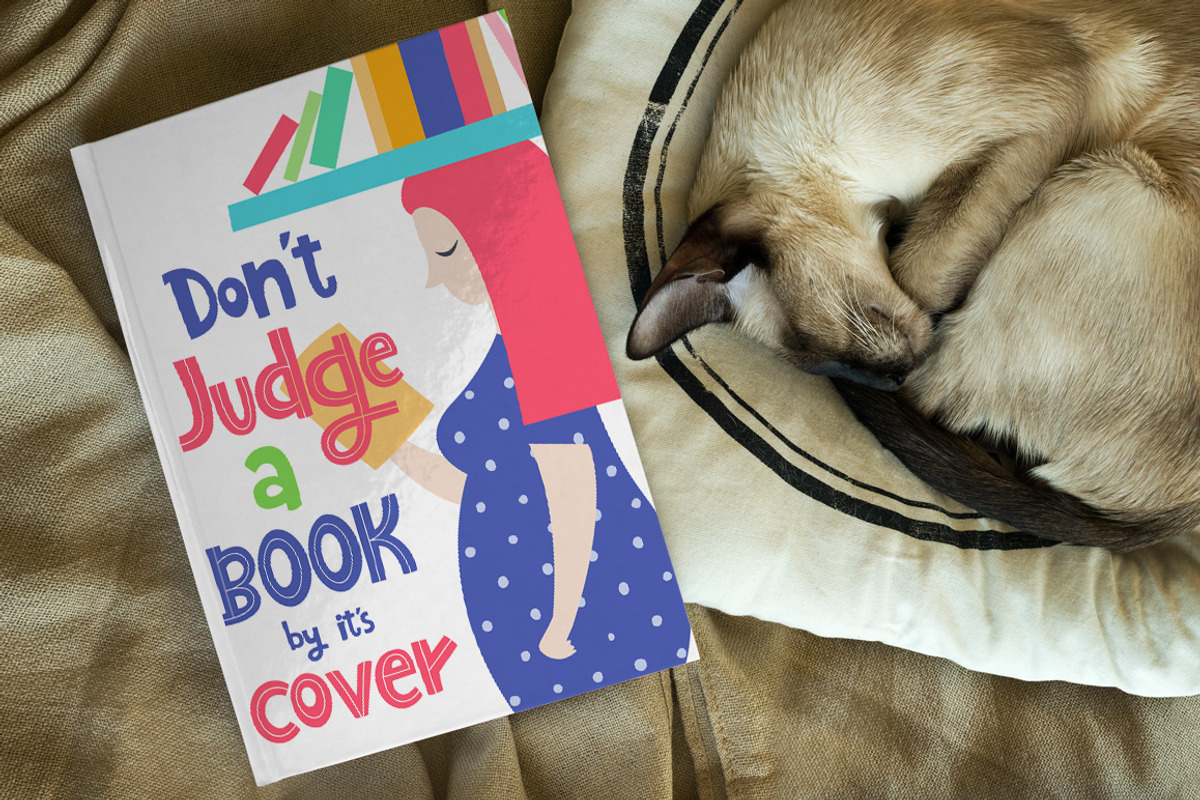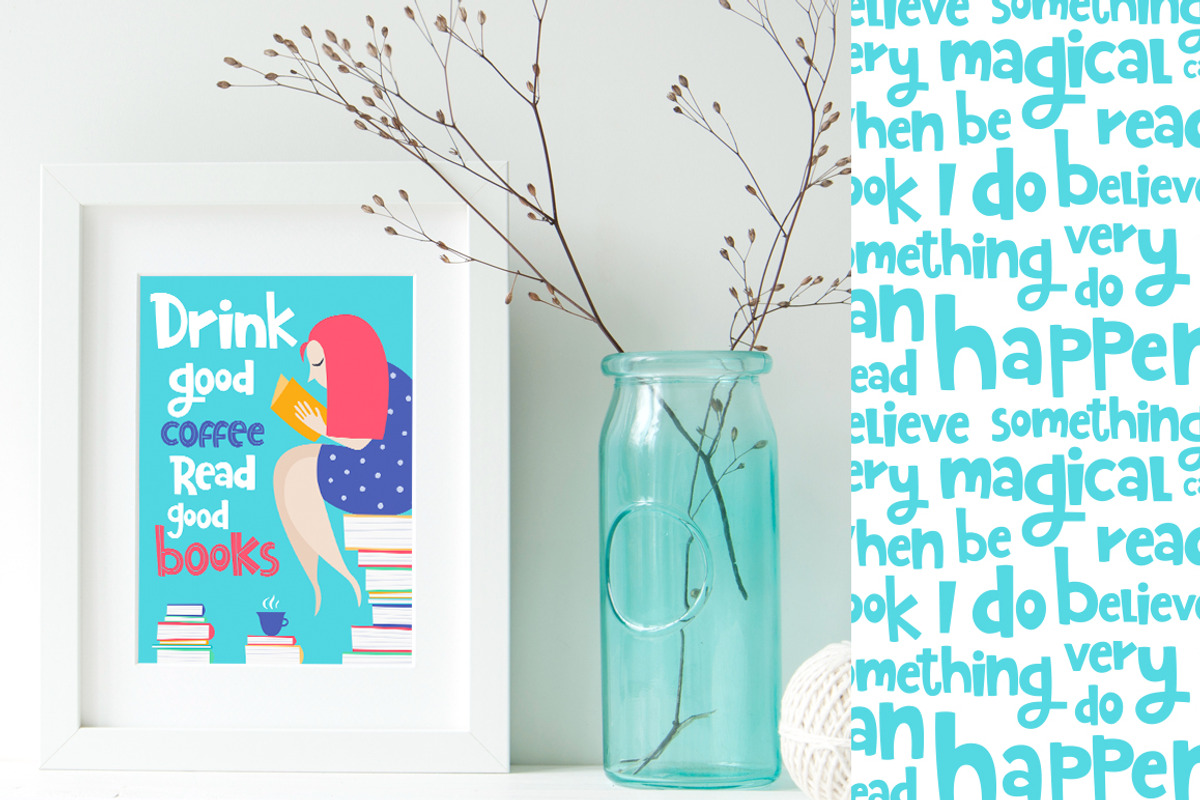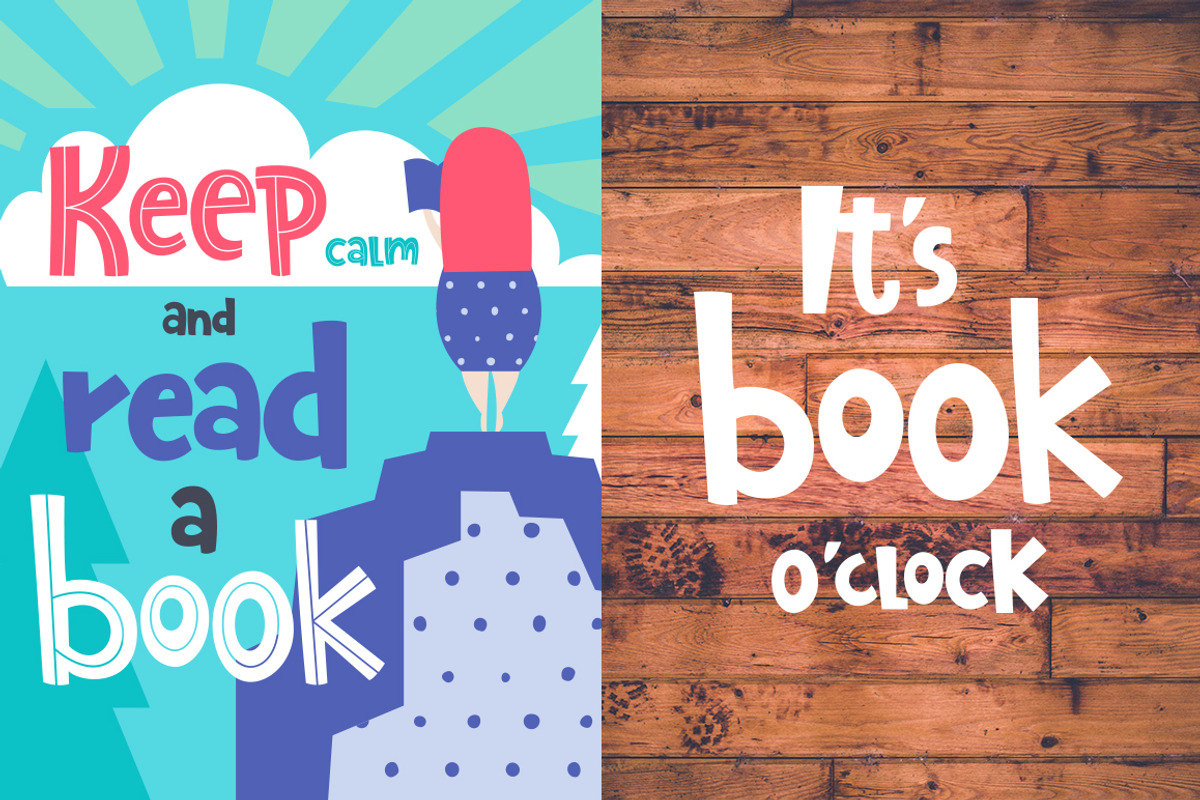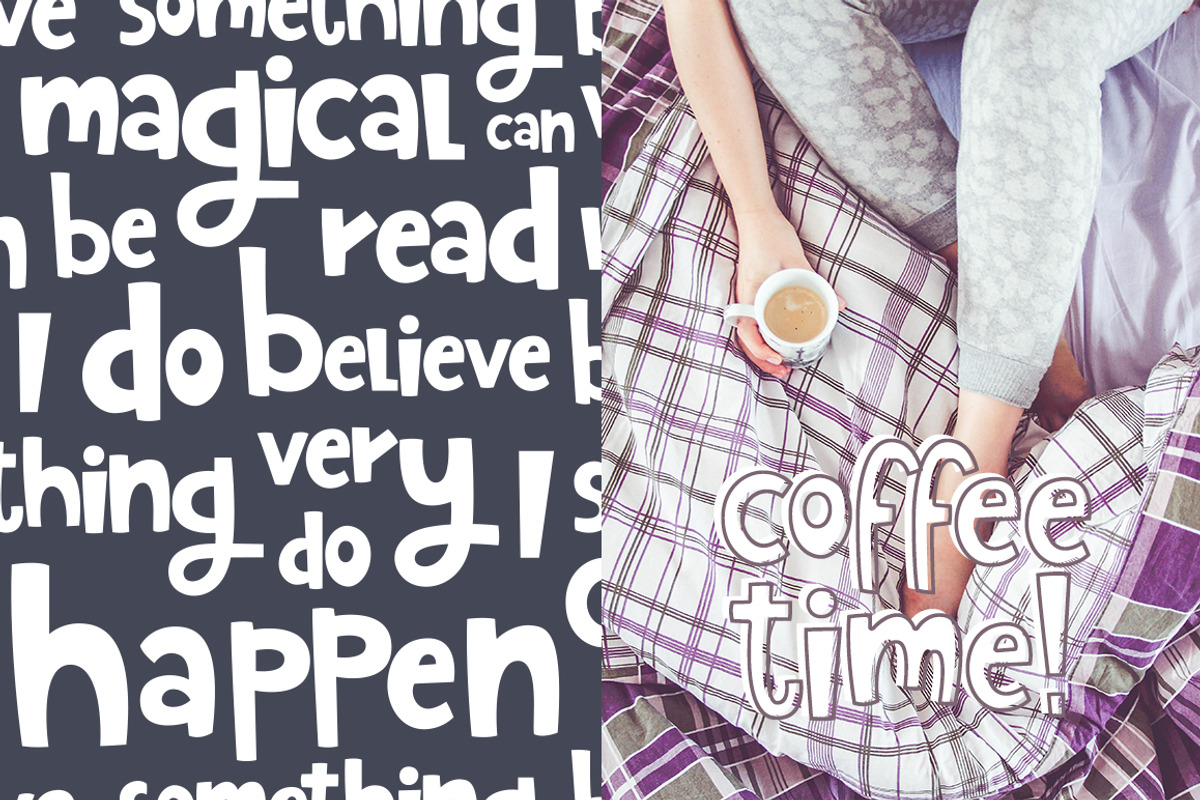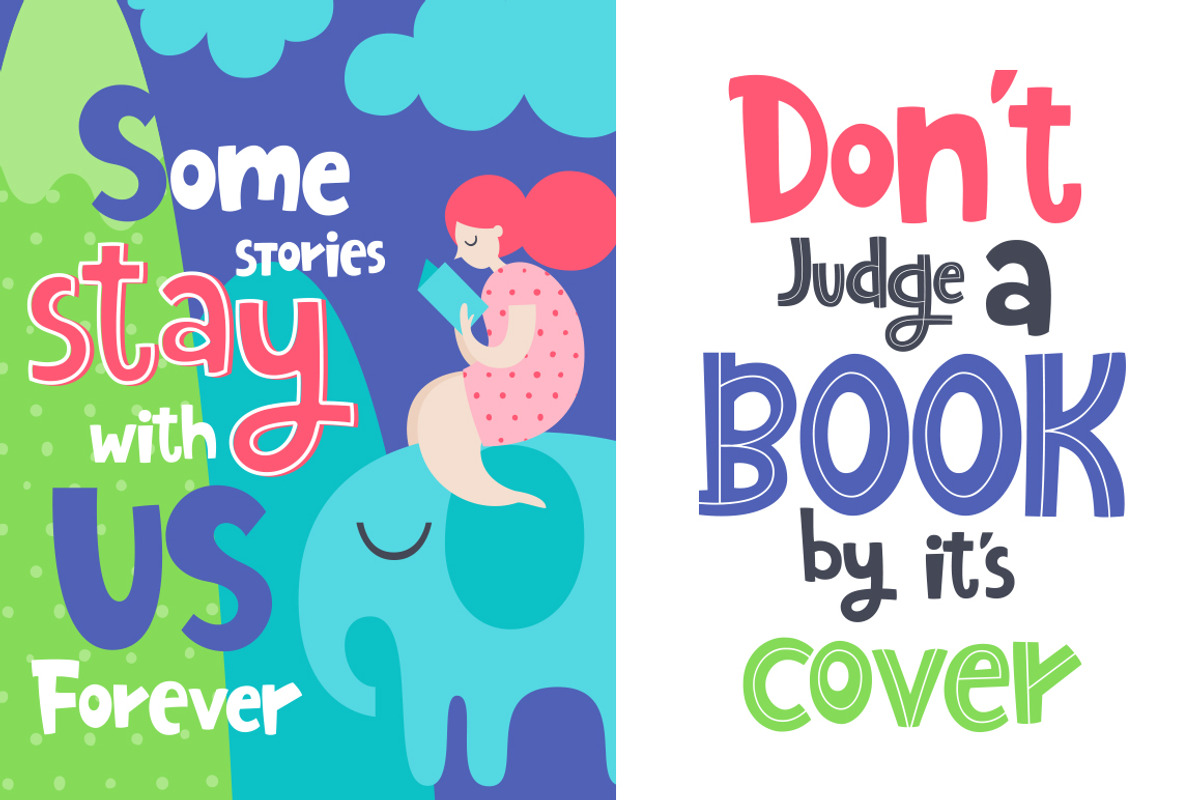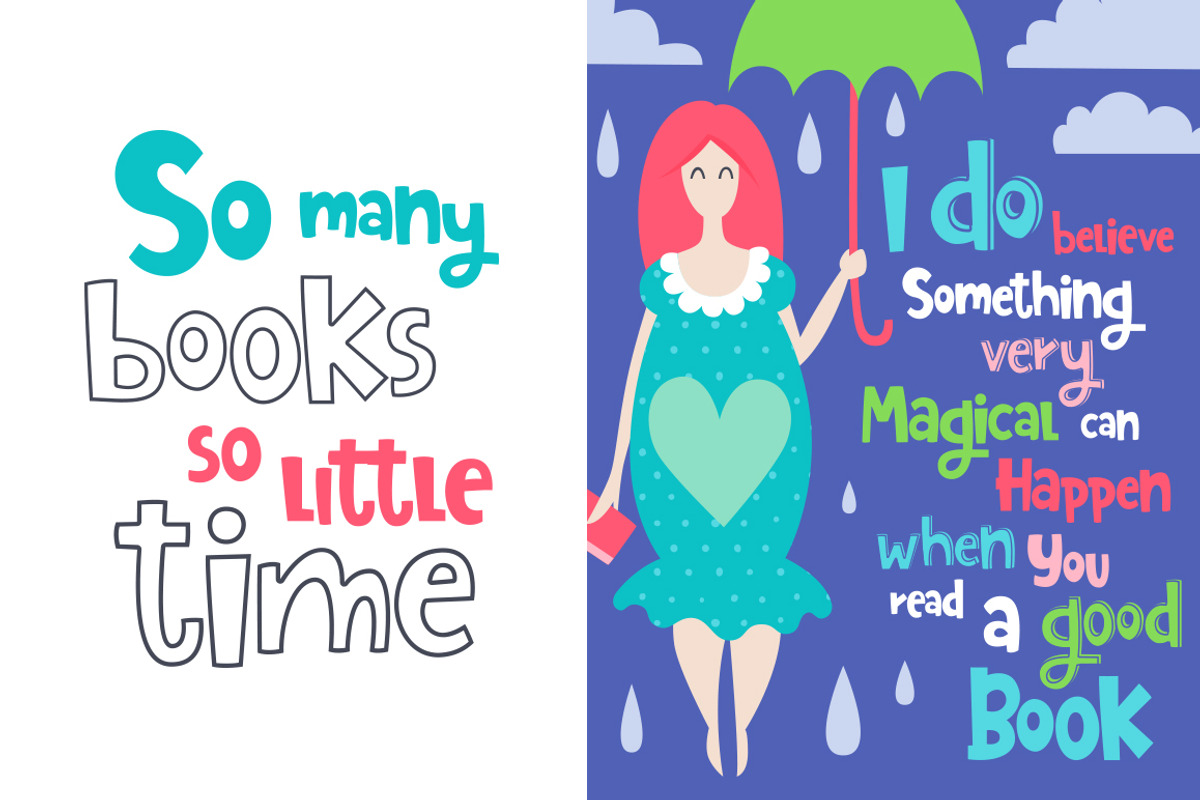
Francy Typeface - Creative Font Trio
♥ Francy typeface - Creative Font Trio! Fonts set for your funny projects! ♥
These scripts is perfect for cards, prints, posters, logos, wedding, branding, invitations, fashion, apparel, arrange illustration and decoration, quotes, blog header, stationery, etc. Good for children.
It has upper and lower case letters, alternate letters, numbers, special characters, accents.